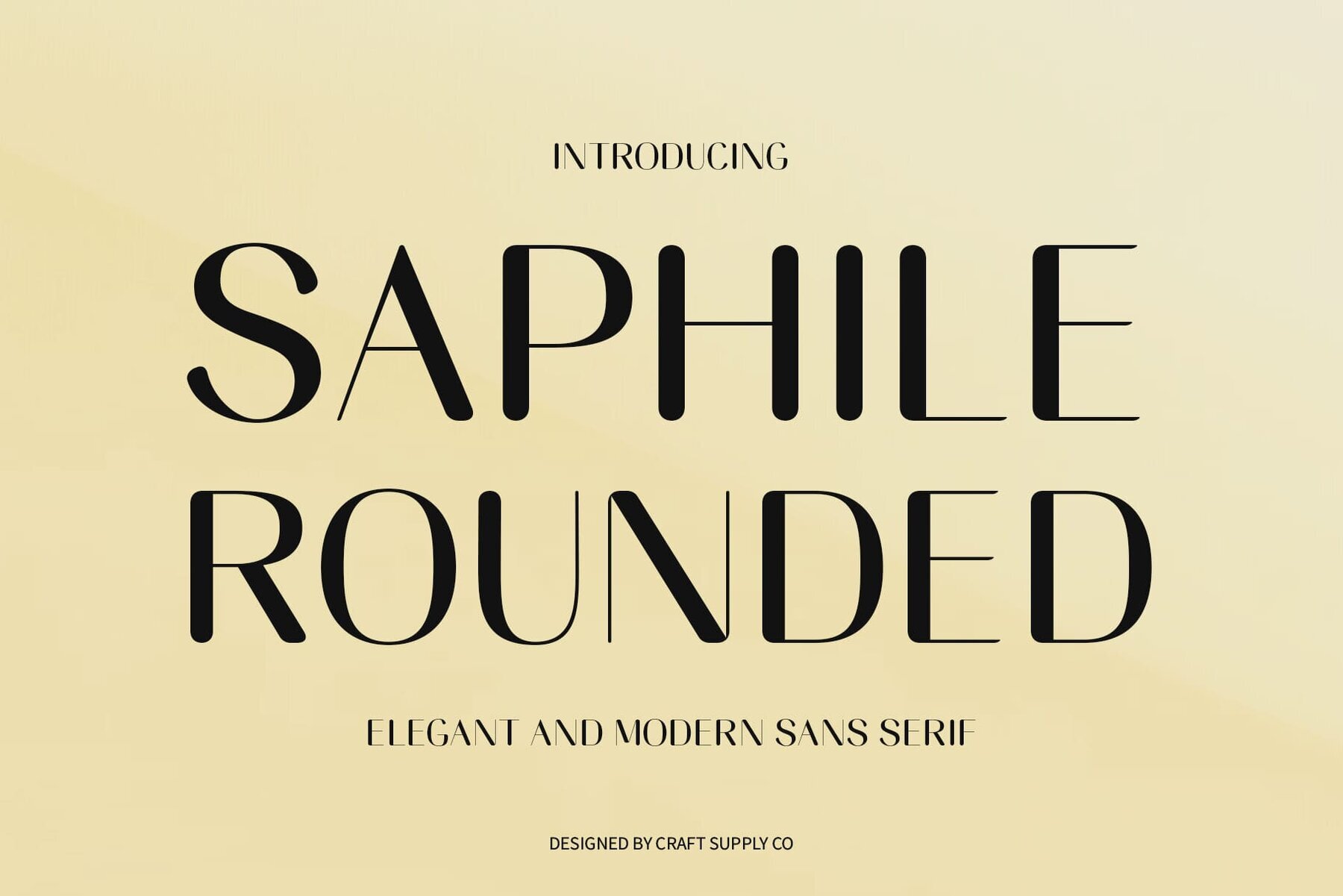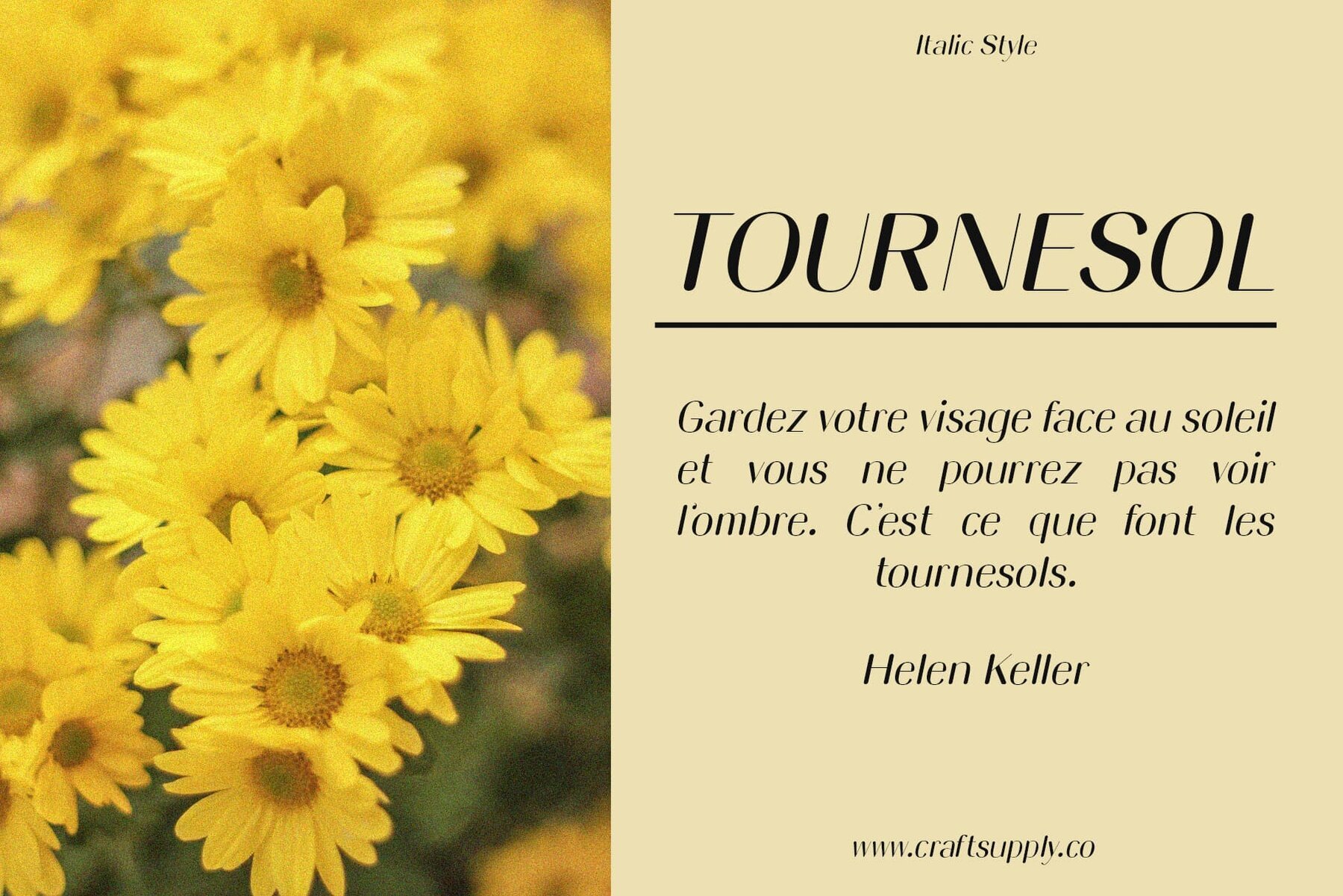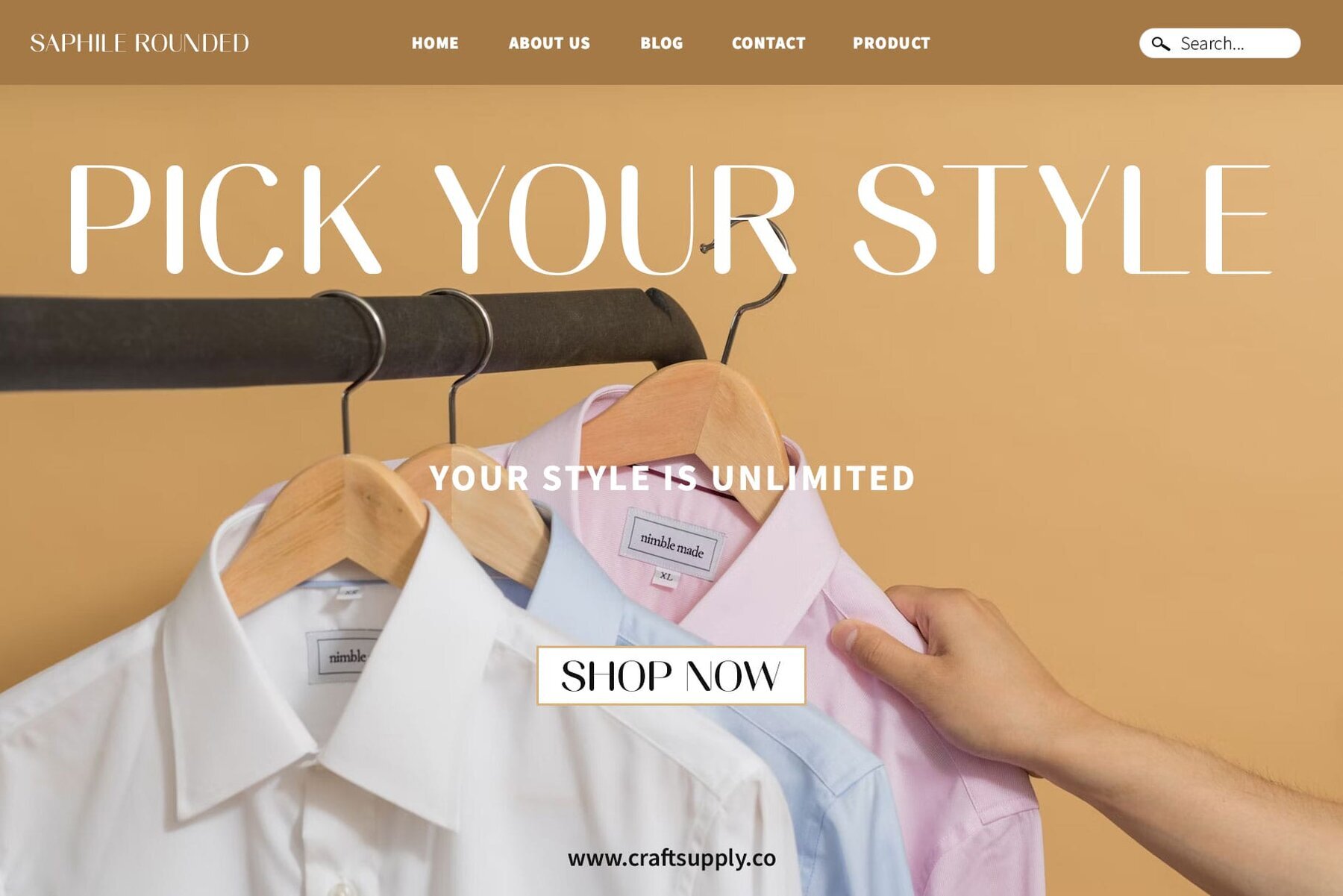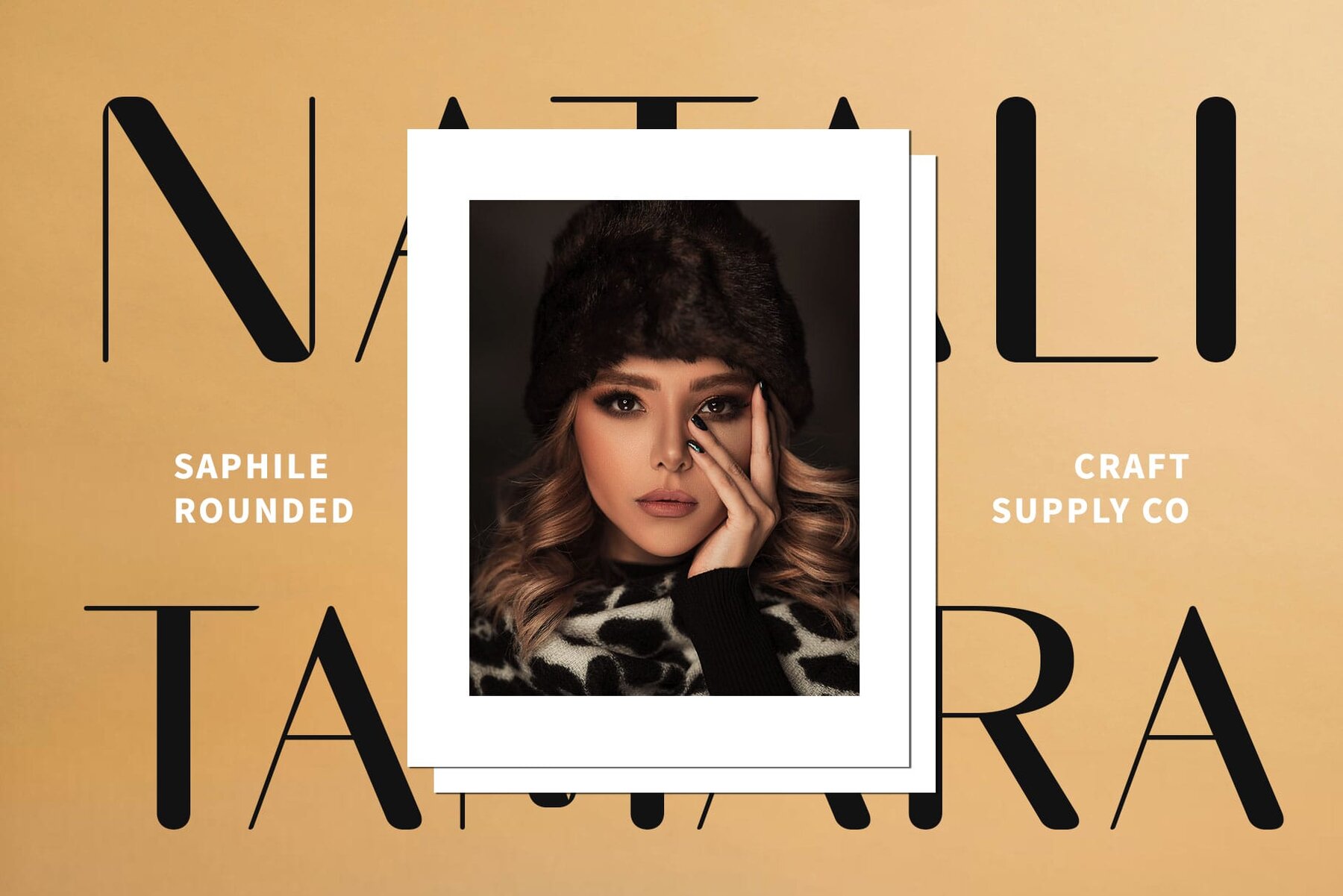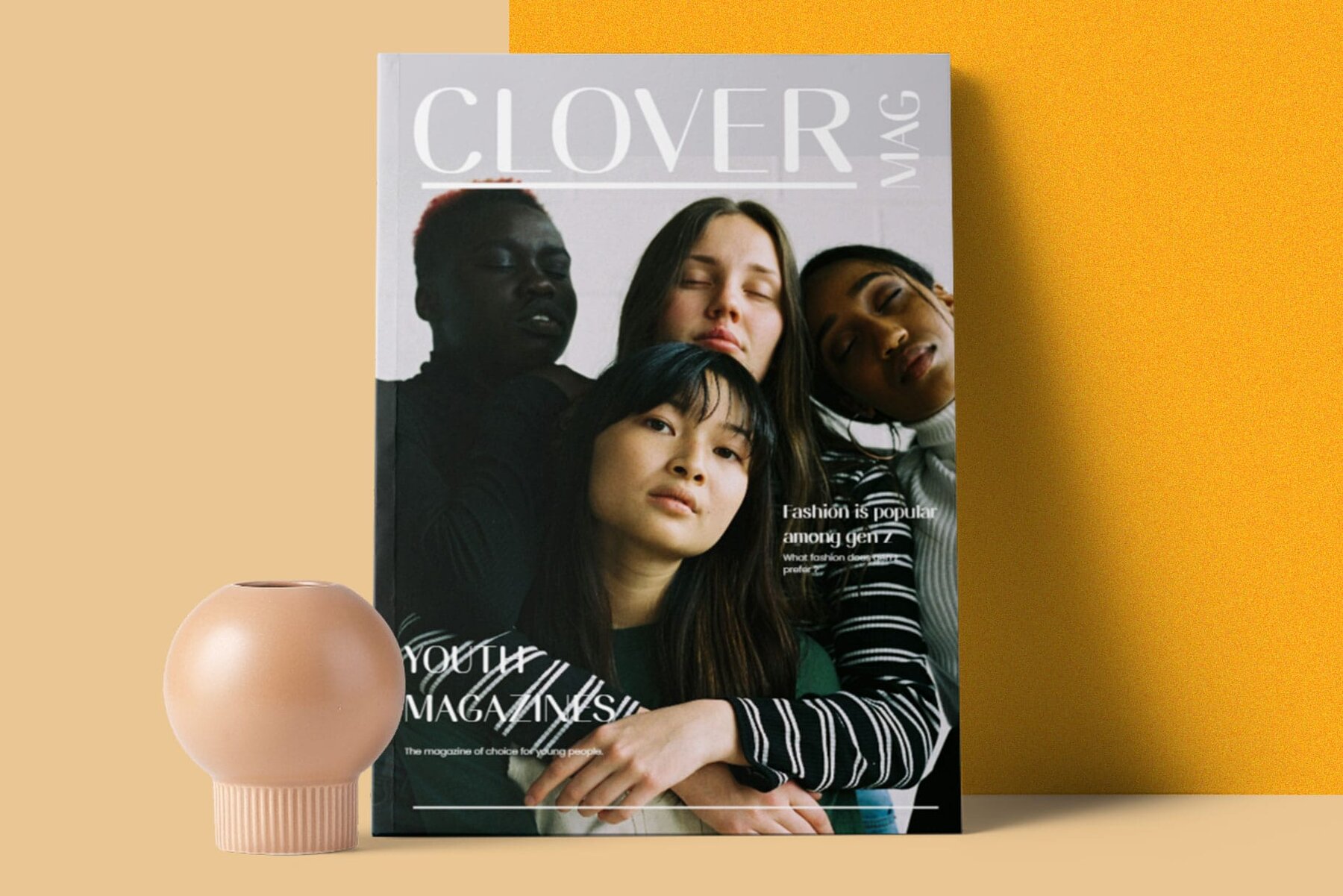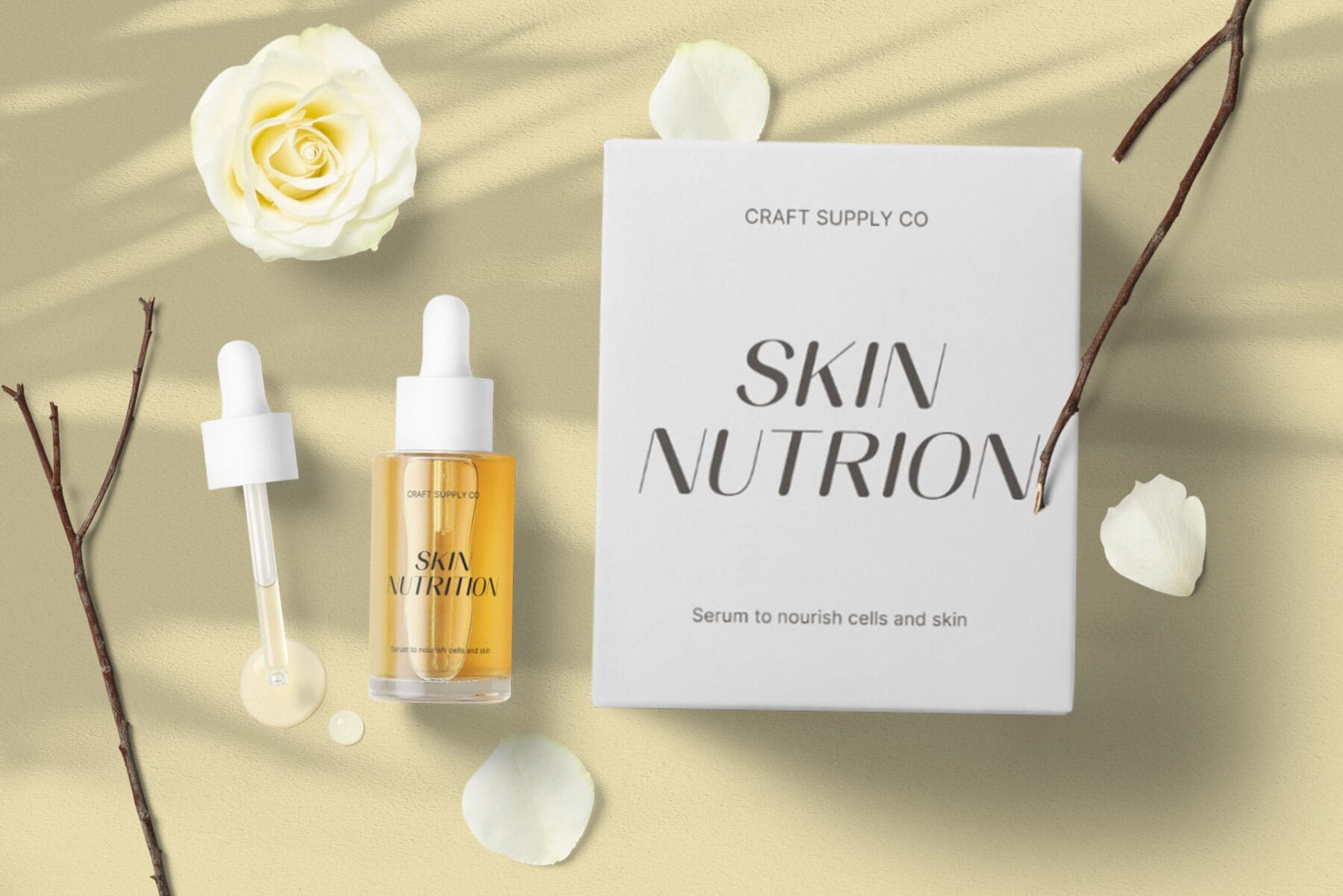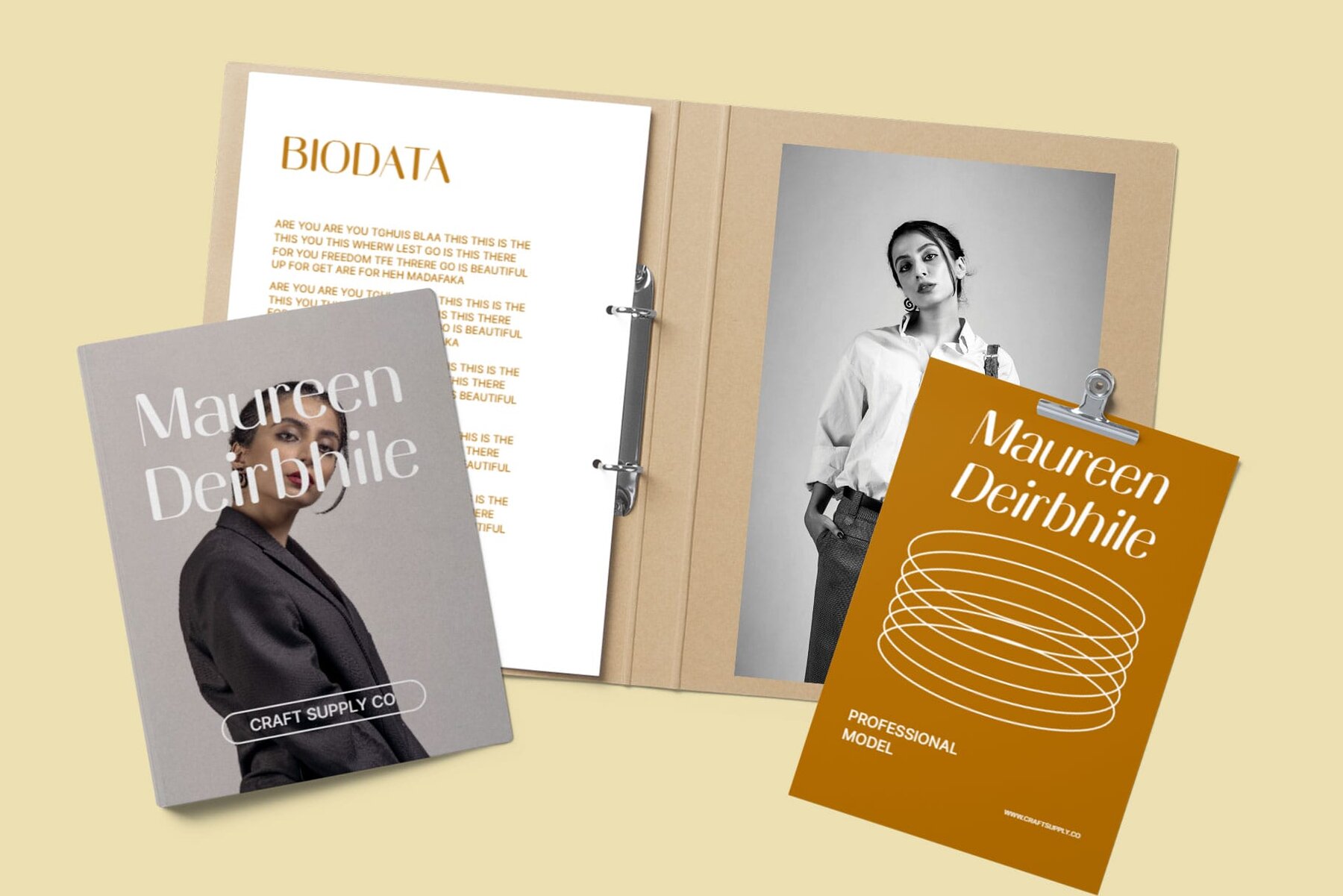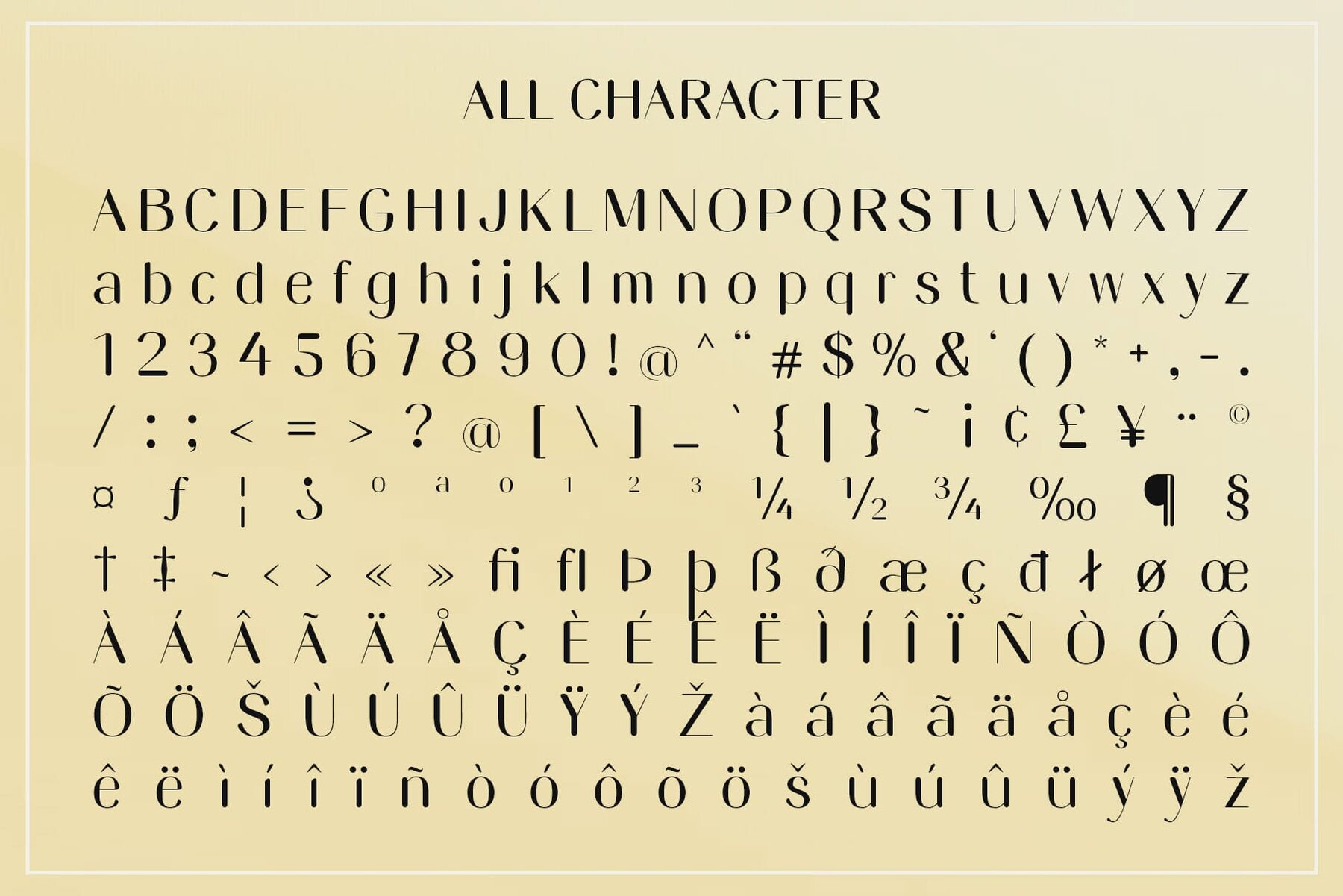
Saphile Rounded Font
This typeface is a unique blend of sans and serif elements, striking a balance between modern and decorative styles. Its sleek, high-contrast letters are eye-catching and perfect for display purposes. With an elegant and contemporary aesthetic, it is well-suited for sophisticated, stylish branding and artistic design projects.